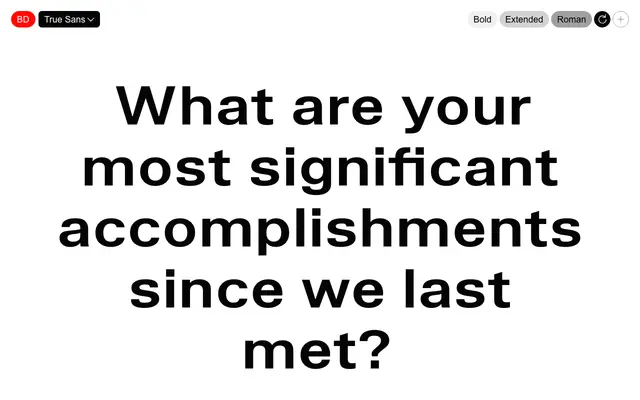
True Sans
A bold extended sans from Bold Decisions with very limited published information available on the typeface page.
True Sans appears to offer at least a Bold Extended Roman cut, suggesting a display-oriented grotesque with width variation. The minimal page content makes it difficult to assess the full family or its design intentions. What little is present points to a no-frills sans aimed at graphic applications.
The page references 'Roman' and 'Extended' variants, and the foundry name 'Bold Decisions' with minimal copy suggests a stripped-back grotesque or geometric sans; classified as grotesque based on available naming conventions.